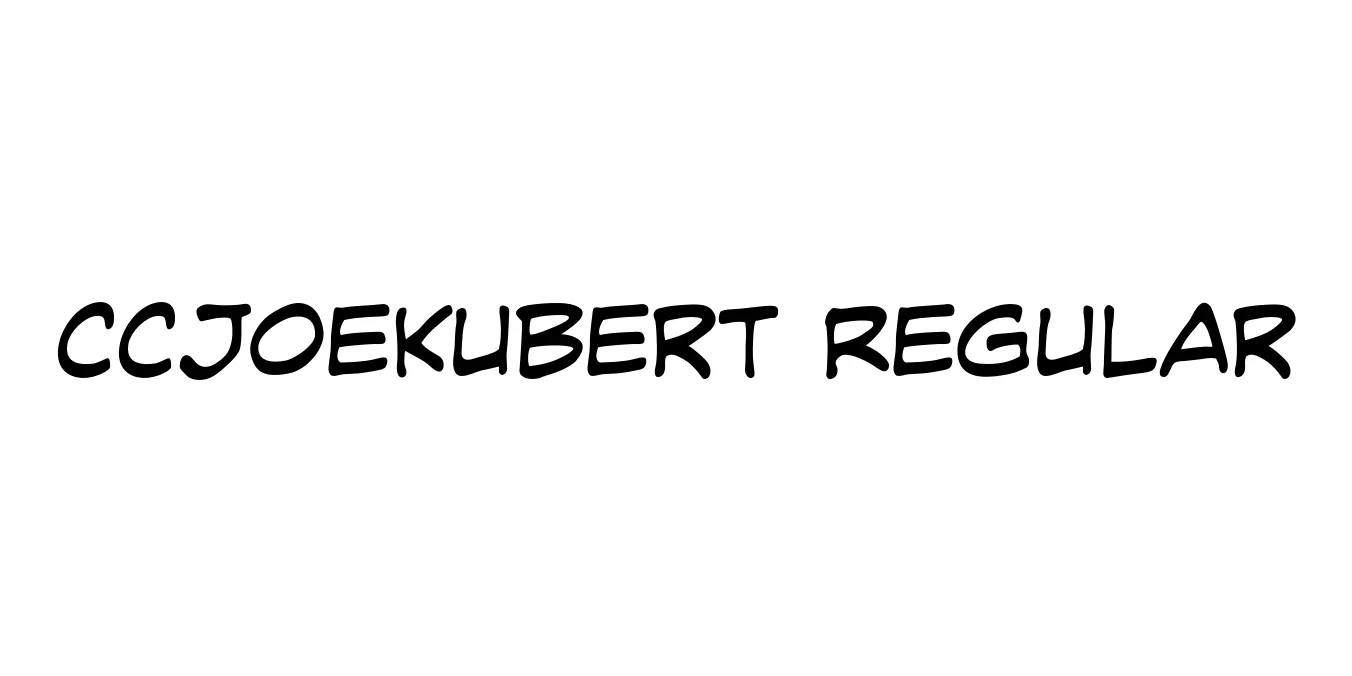
CCJoeKubert Regular
Designed by John Roshell (Comicraft)
| Font Name | CCJoeKubert |
| Category | Comic / Display |
| Designer | John Roshell (Comicraft) |
| Similar Fonts | CC Wild Words, Joe Kubert Hand, Komika Axis |
CCJoeKubert Regular is a masterfully crafted typeface designed by John Roshell as a tribute to the legendary comic book artist Joe Kubert. This font captures the unique, raw energy and seasoned hand-lettering style that Kubert utilized throughout his illustrious career, particularly in his iconic work on titles like Sgt. Rock and Hawkman. It brings an authentic, hand-inked quality to digital layouts, preserving the heritage of traditional comic book production.
As part of the Comicraft collection, this typeface is engineered for professional legibility and versatility. It is characterized by its dynamic stroke weights and classic proportions, making it a staple for letterers who want to evoke the Golden and Silver Ages of comics. Whether used for dialogue or narration, it provides a timeless aesthetic that bridges the gap between manual craftsmanship and modern digital design.
CCJoeKubert Regular Best Uses
Authentic dialogue and narration bubbles for superhero and war-themed stories.
Perfect for traditional storytelling and character-driven narratives.
Effective for creating vintage-style comic book covers and event flyers.
Great for apparel and accessory designs looking for a classic comic aesthetic.